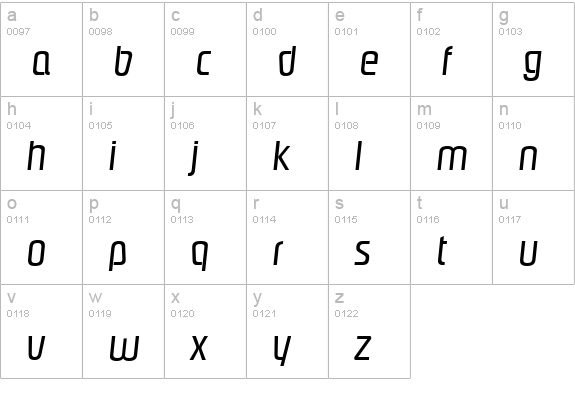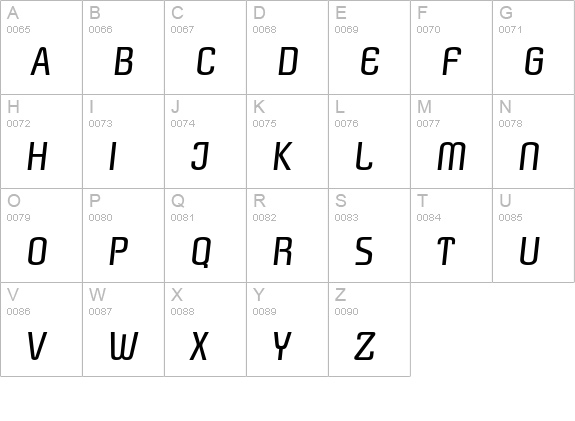
PasadenaSerial-Italic is a distinctive, italic variant in the PasadenaSerial typeface family \xE2\x80\x94 well suited to design and typography projects.
PasadenaSerial-Italic is a sleek and modern font with a touch of elegance. Its italicized design adds a sophisticated flair to any project, making it perfect for branding, headlines, and editorial content. The thin and flowing lines give PasadenaSerial-Italic a sense of movement and grace, enhancing the overall visual appeal. The best part is that PasadenaSerial-Italic is available for free download at FontsMarket.com. This means you can easily access this stylish font without any cost, making it a valuable addition to your design toolkit. Don't miss out on the opportunity to elevate your projects with the effortlessly chic PasadenaSerial-Italic font today.